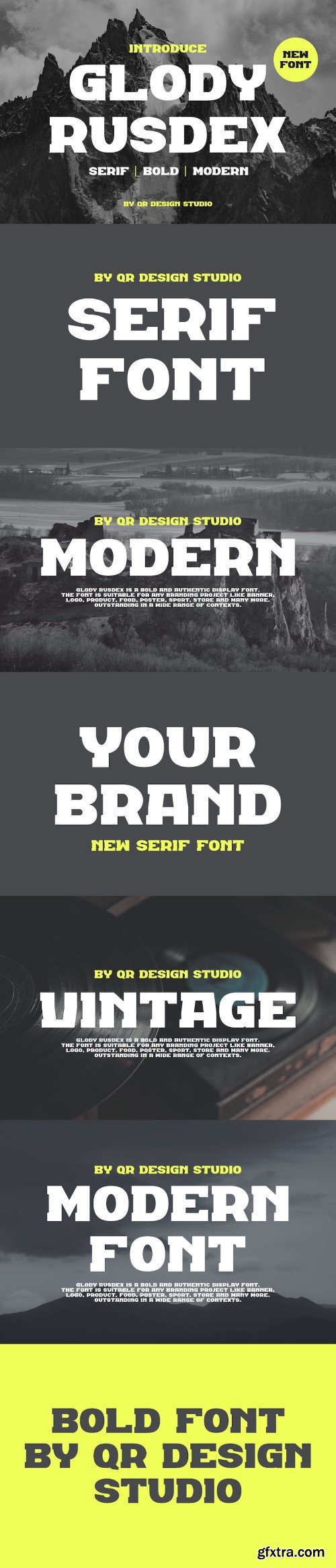
Glody Rusdex - Free Font is a bold and authentic display font. The font is suitable for any branding project like food, poster, logo, sport, and many more. Outstanding in a wide range of contexts.